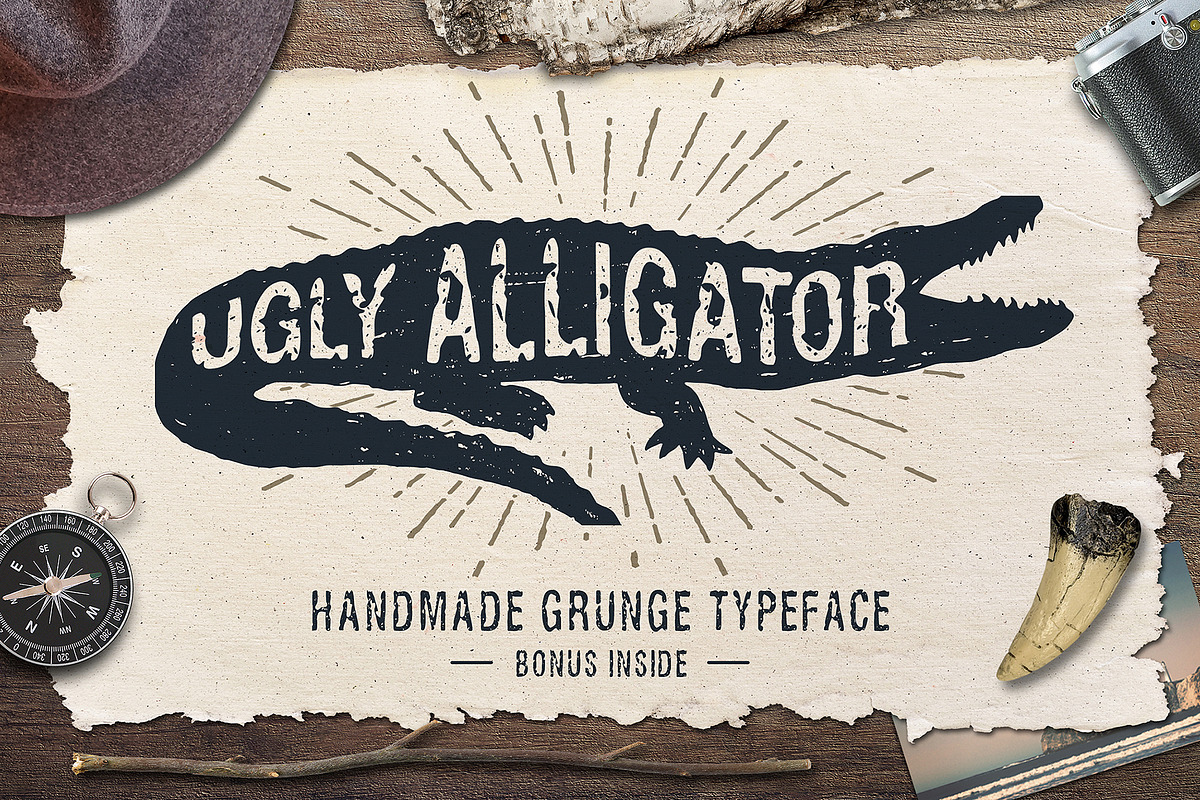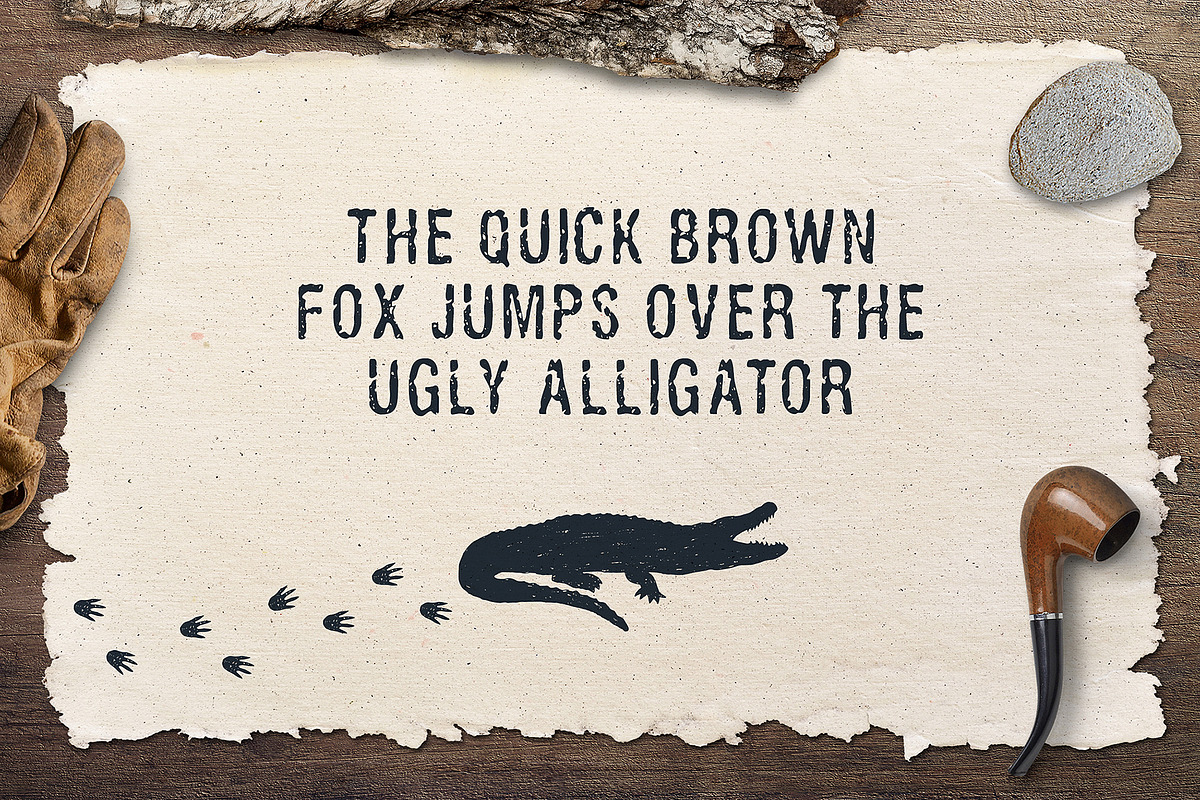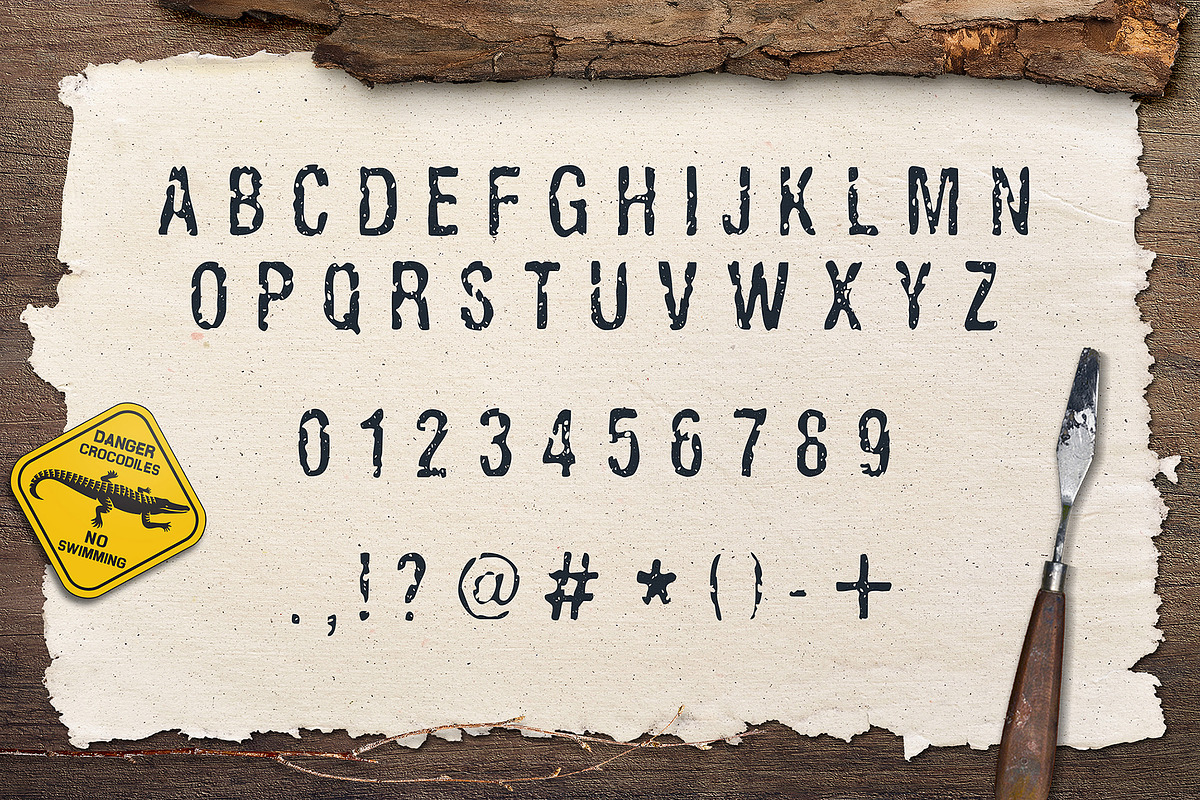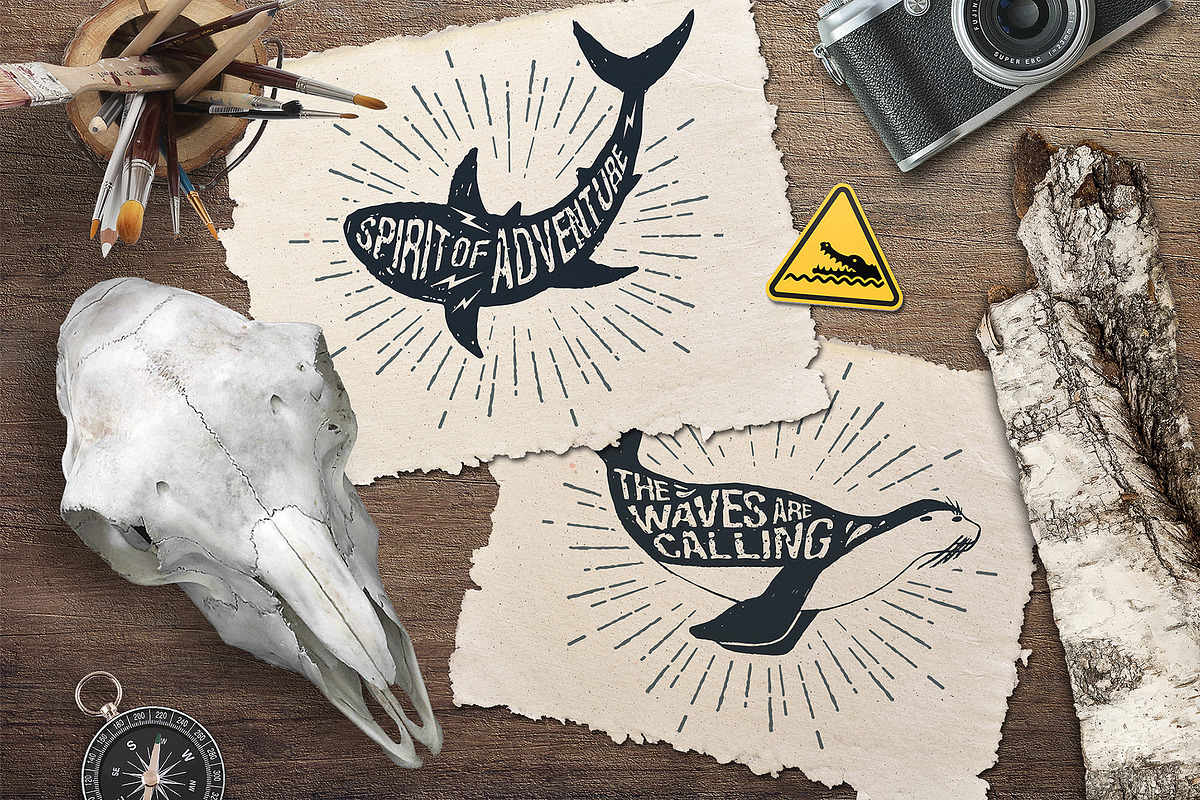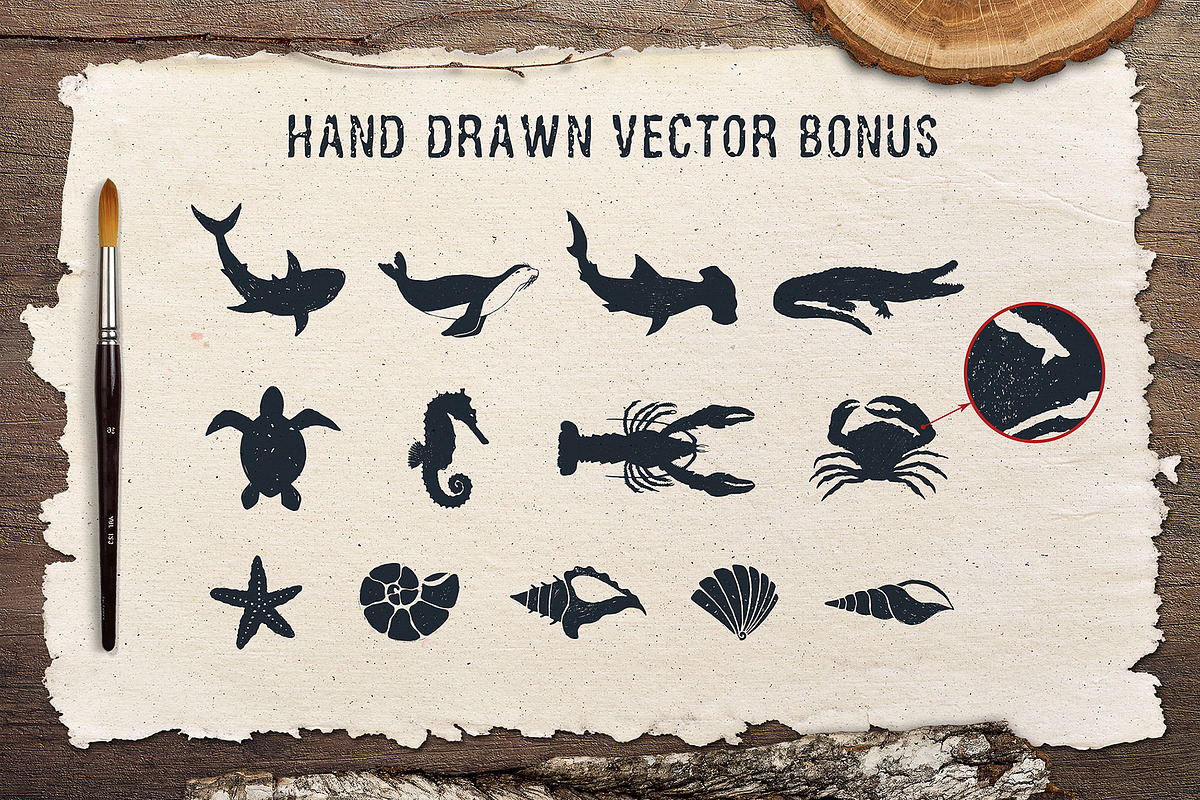
Ugly Alligator. Handmade Grunge Font
Ugly Alligator. Handmade Grunge Font by Cosmic Store is a font selected for branding, posters, packaging, typography.
Ugly Alligator. Handmade Grunge Font by Cosmic Store fits naturally into Branding, posters, packaging, typography.